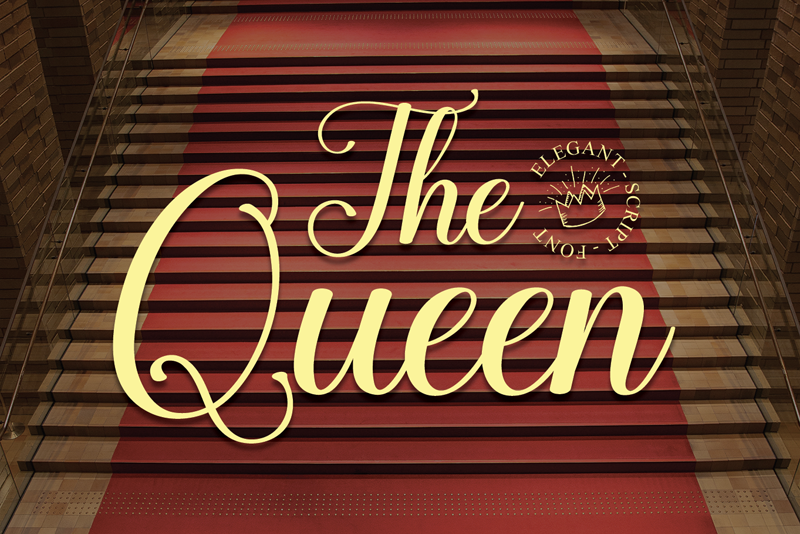
Note of the authorThe Queen is a fashionable script font. It is neatly crafted and highly detailed. Whatever the topic, The Queen will be a wonderful asset to your fonts library, as it has the potential to enhance any creation.